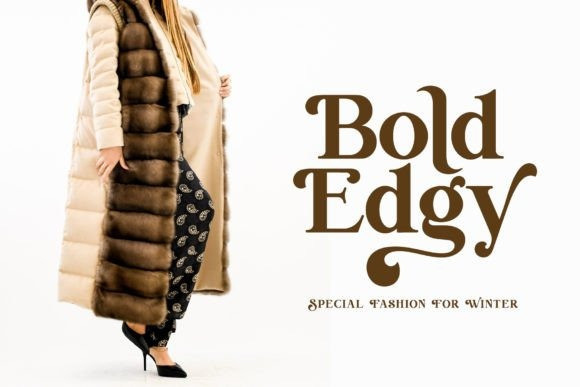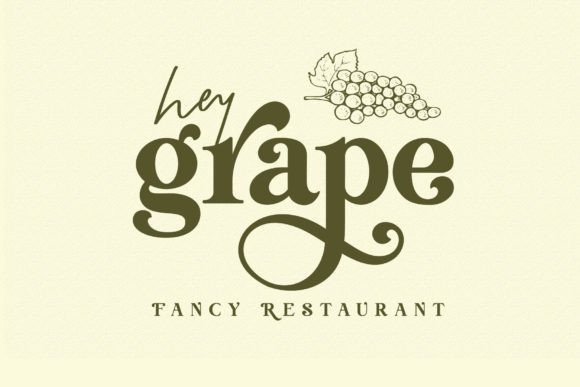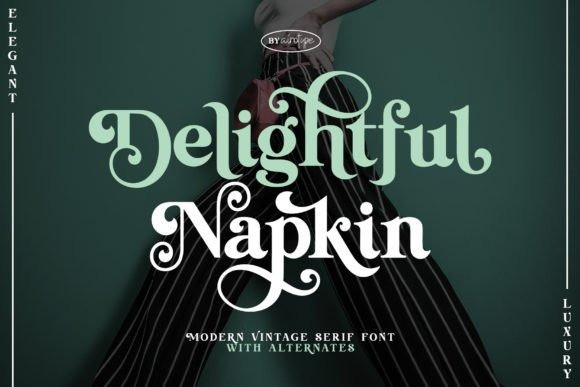
Delightful Napkin Font
Delightful Napkin Font is a vintage serif font that is the perfect blend of modern and fancy design. With its elegant curves and ornate details, it captures the essence of the past while still feeling fresh and current. Use it to add a touch of sophistication to any project, from invitations to branding.